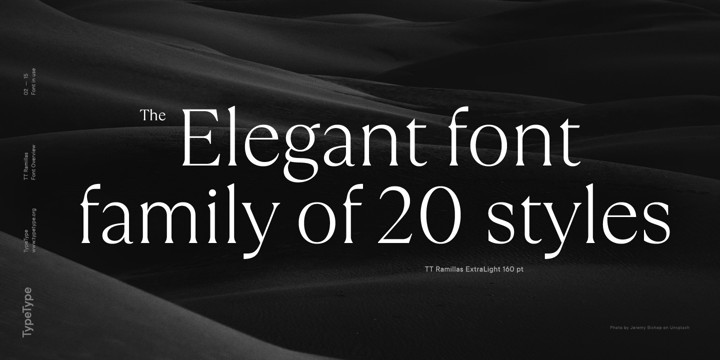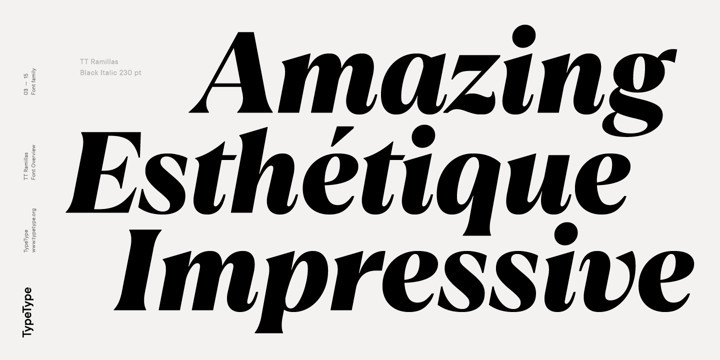
TT Ramillas Font
TT Ramillas FontTT Ramillas is a fully reconsidered high contrast transitional serif, which is perfectly adapted to modern realities and requirements. When starting this project, we wanted to try to draw a modern serif with the precisely verified shapes, high contrast and detailed elaboration of each character.